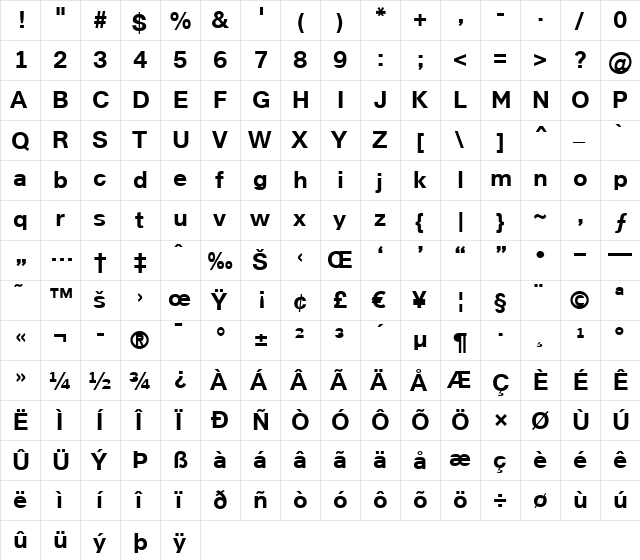
a_ReportSans Bold
| Designer | W.Chufarofsky & M.Slutsker |
Design Context for a_ReportSans Typeface
a_ReportSans offers clean, dependable letterforms without strong stylistic allegiance, making it a practical choice for designers who need flexibility. Its bold stroke weight gives it real presence on the page.